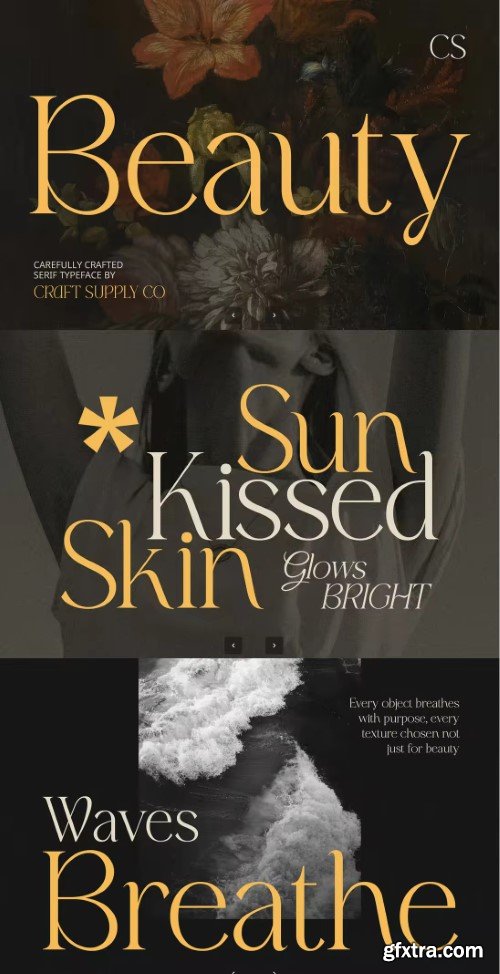
Beauty – Stylish Font
- Sleek Minimalism with Elegant Flair CS Beauty is a modern serif font designed with a sleek, clean structure and refined elegance. It embraces a contemporary minimalist style while retaining the delicate character of classic typography, resulting in a timeless yet fashionable appearance. Graceful Lines and Subtle Serifs With its thin strokes and gentle serif accents, CS Beauty exudes poise and sophistication. The carefully sculpted details offer just the right amount of ornamentation, adding charm without clutter—ideal for clean, modern layouts with a hint of luxury.